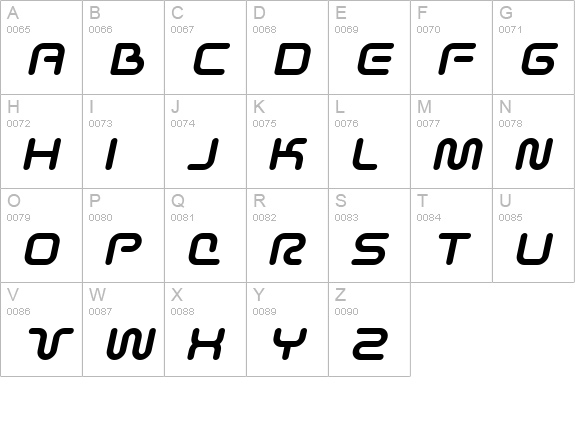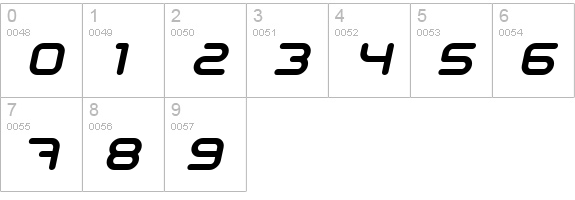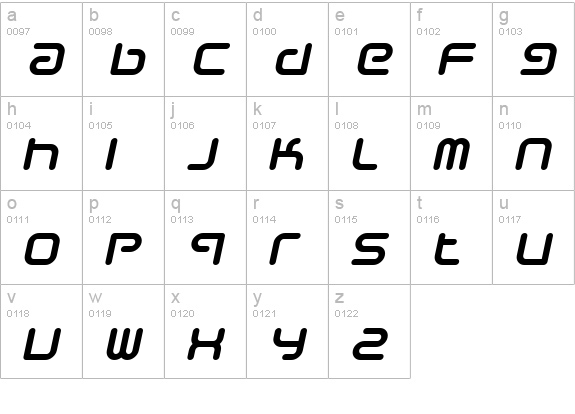
Sci Fied Italic is a distinctive, italic variant in the Sci typeface family \xE2\x80\x94 well suited to design and typography projects.
Introducing Sci Fied Italic, a mesmerizing and futuristic font that transports your imagination to the outer reaches of the galaxy. This remarkable typeface combines sleek, sharp lines with a captivating italic style, creating a truly otherworldly aesthetic. Each letter of Sci Fied Italic seems to pulsate with energy, evoking a sense of advanced technology and scientific discovery. The elegant slant adds a dynamic touch, as if the words themselves are in constant motion, propelling you forward into a world of infinite possibilities. With its bold, yet refined appearance, Sci Fied Italic is the perfect choice for any science fiction project, whether it be a book cover, movie poster, or video game design. It effortlessly captures the essence of the genre, immersing readers and viewers in a realm of futuristic wonders and thrilling adventures. The best part? Sci Fied Italic is freely available to download at FontsMarket.com. This means that you can bring this extraordinary font into your creative endeavors without breaking the bank. Whether you're a professional designer or an enthusiastic hobbyist, you can now access this cutting-edge typeface at no cost, making it accessible to all. So, why wait? Unleash the power of Sci Fied Italic and embark on a journey through the cosmos of imagination. Download this font from FontsMarket.com today and watch your creations soar to new heights in the realm of science fiction.